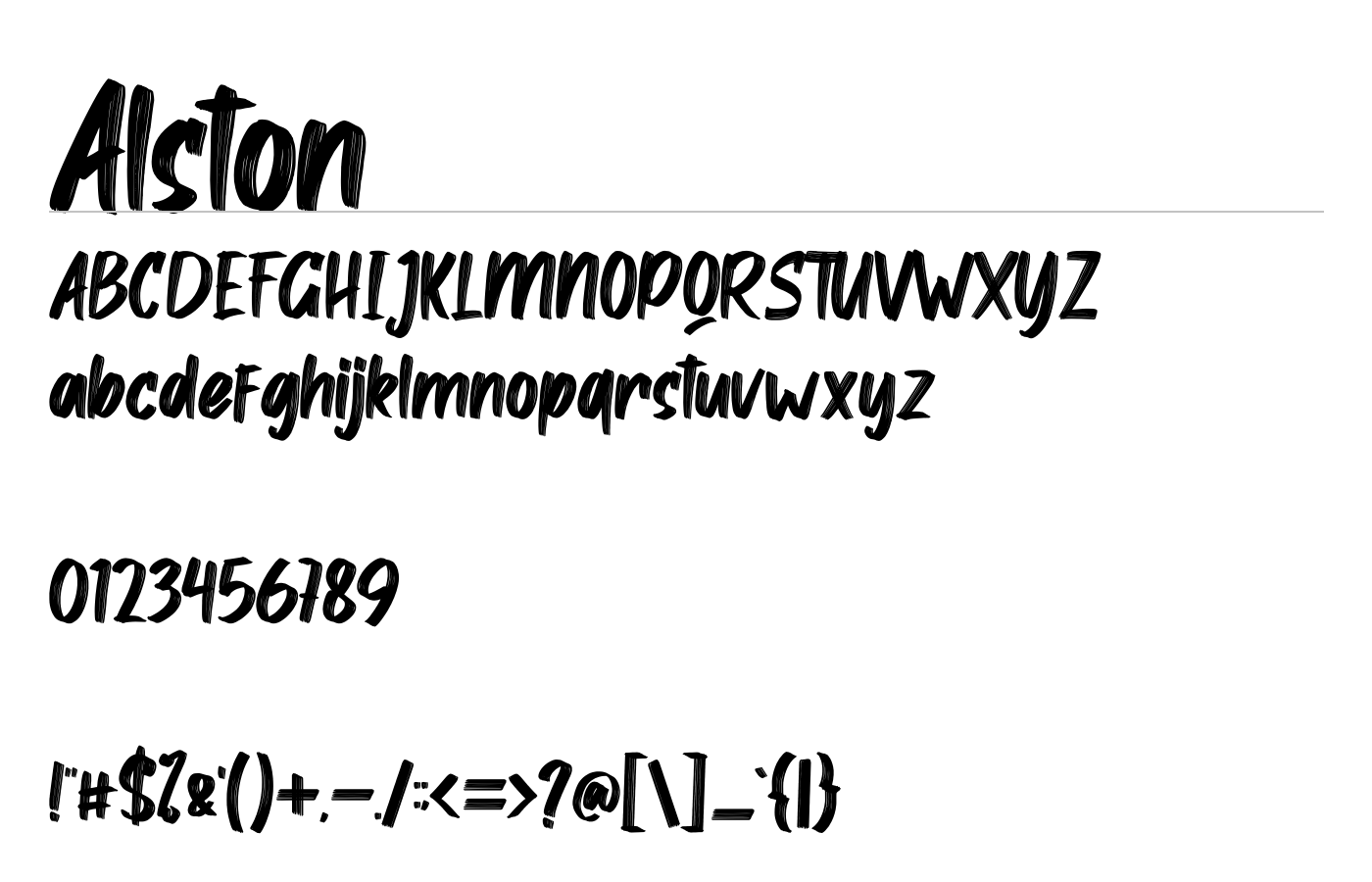
Alston is a bold, casual brush script font with a lively and energetic feel. Its irregular, hand-painted strokes give it a friendly and approachable character, making it perfect for creative branding, posters, and informal designs that need a personal touch. This font works best in headlines and display uses where a sense of spontaneity and warmth is desired.
Alston Font
About Alston Font